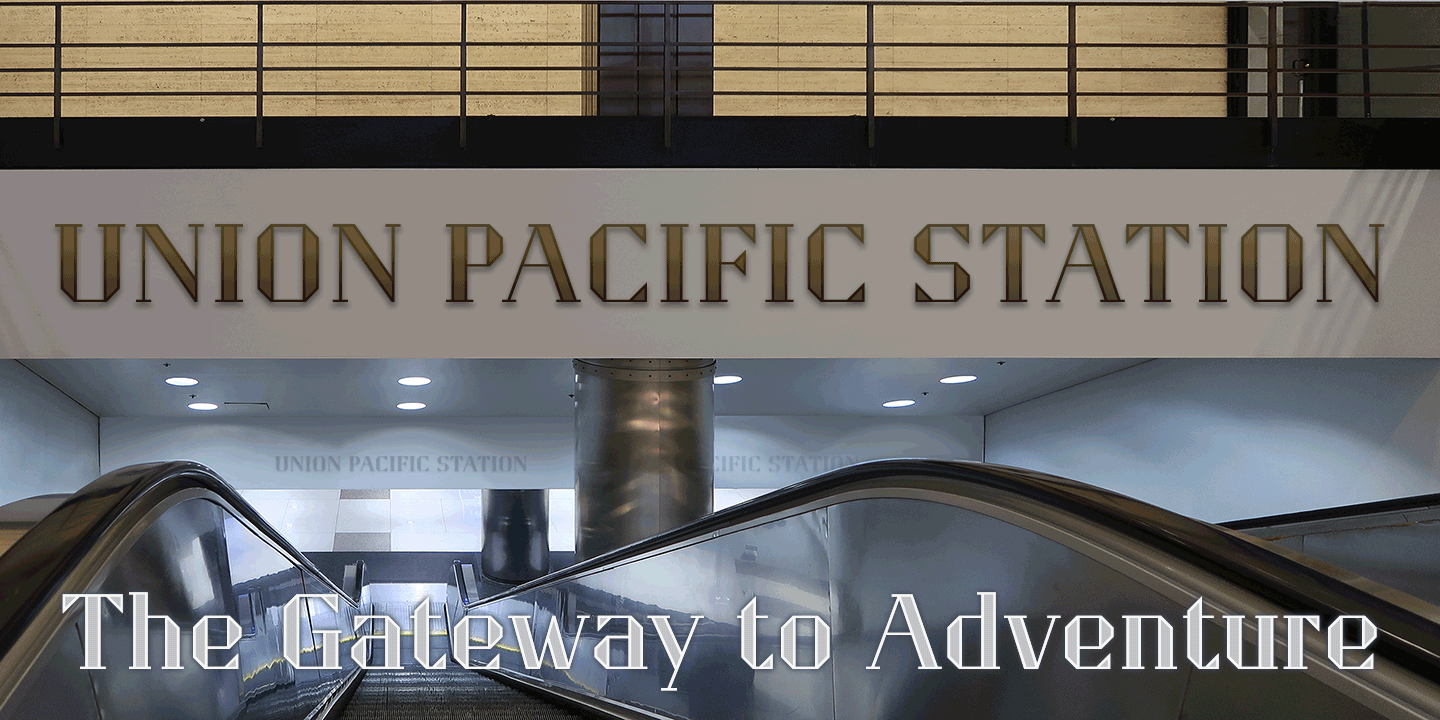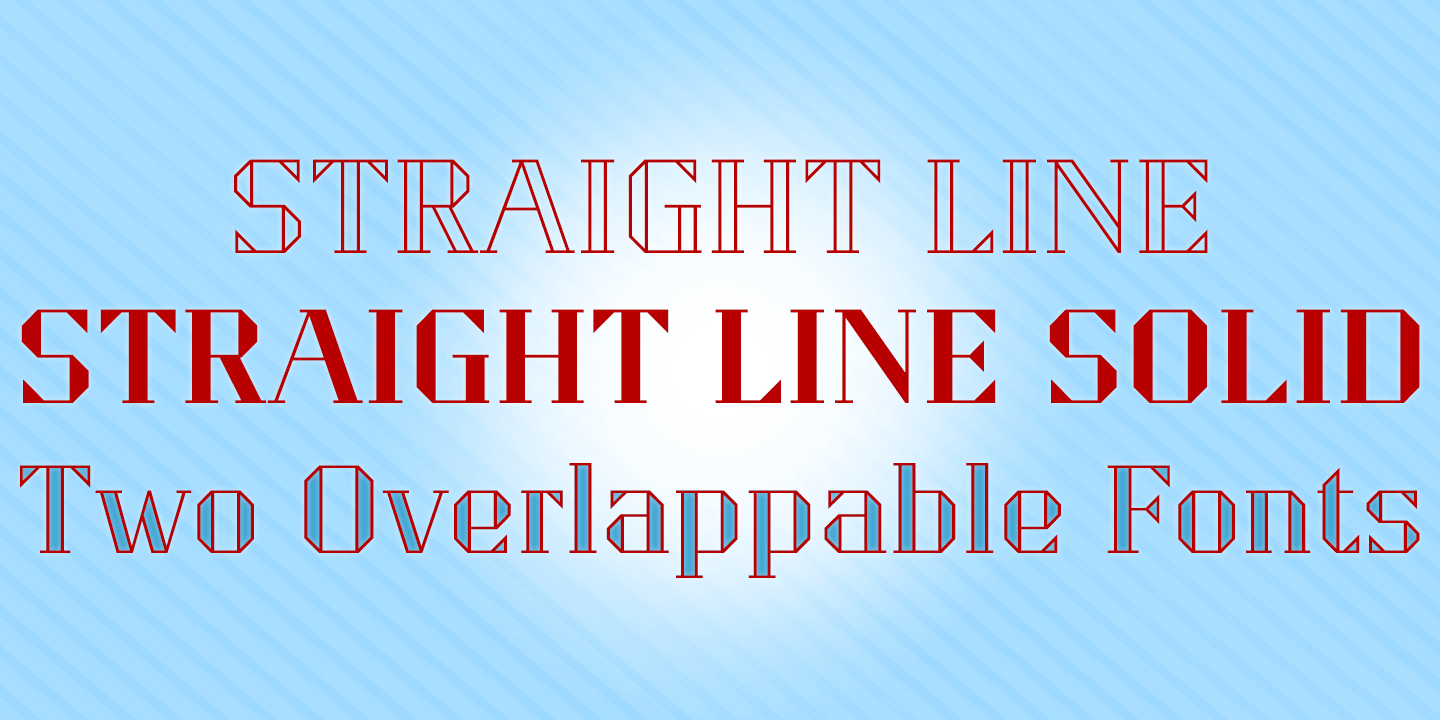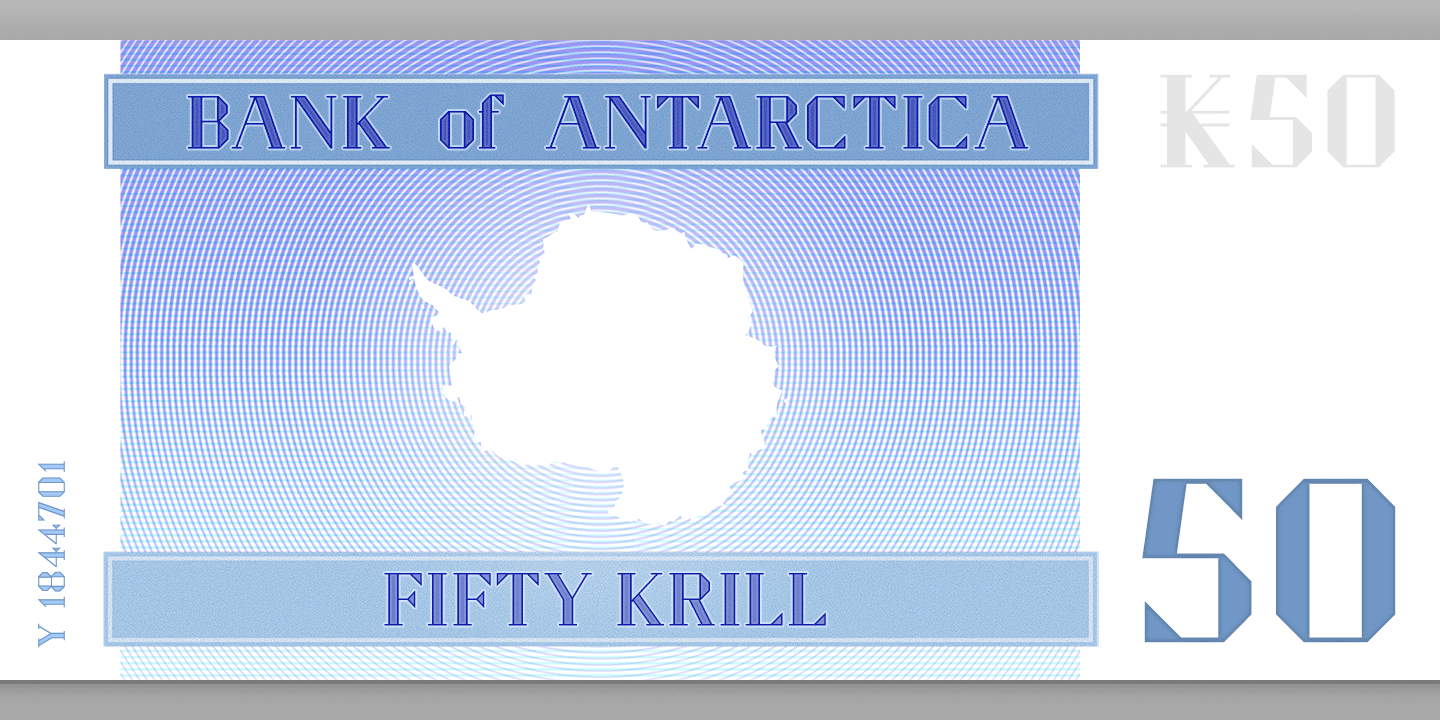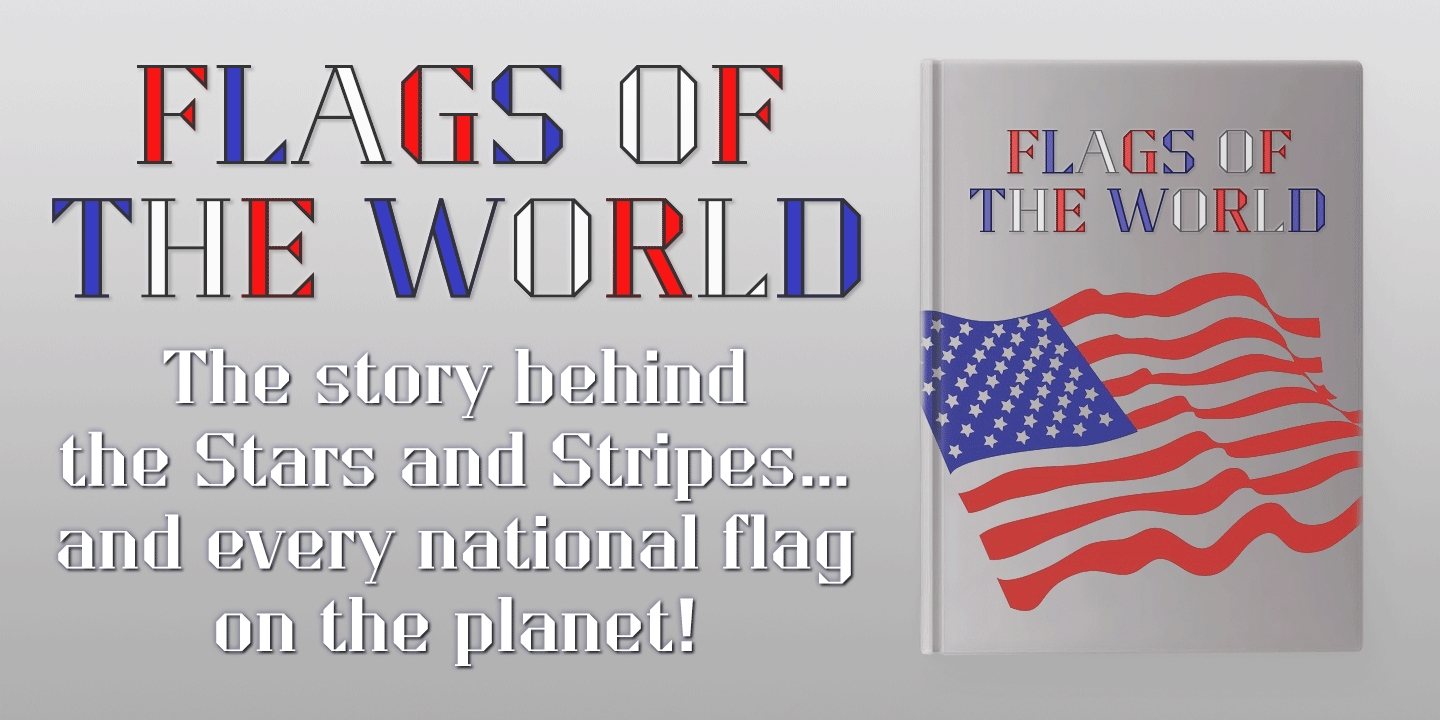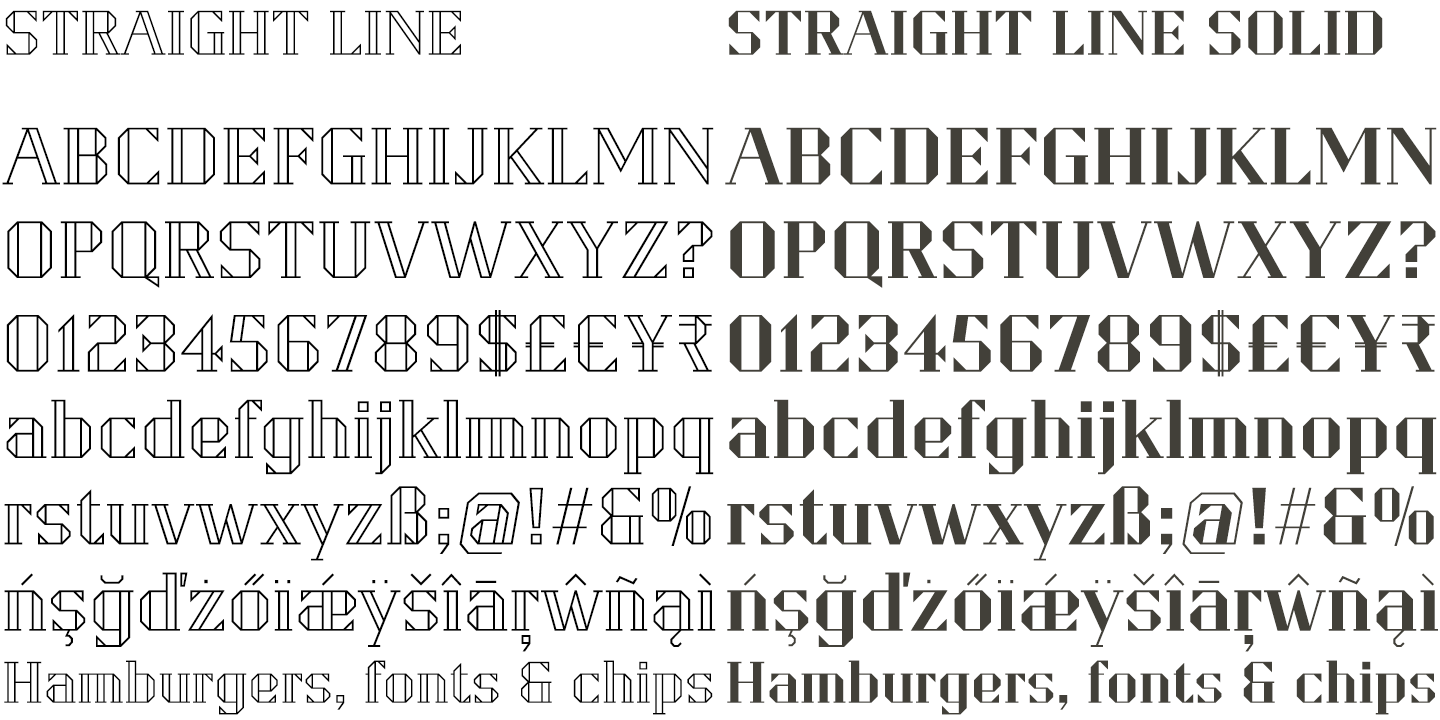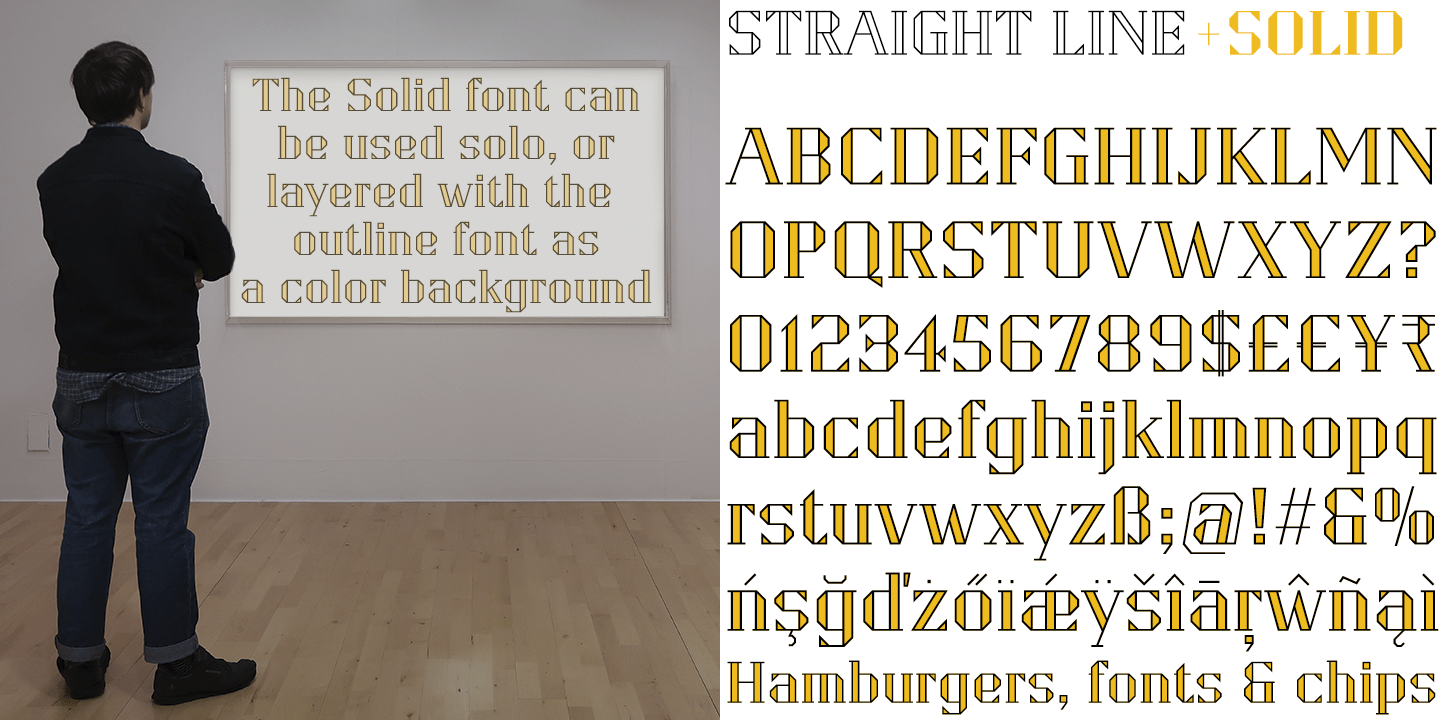
Straight Line
Font Family by K-Type
Straight Line is essentially an outline Modern, but drawn without any curves whatsoever. Thin horizontals and thick verticals provide the classic look of a Didone, updated and enhanced by clean, minimalist geometry.
In addition to the Straight Line font itself, the package includes Straight Line Solid with matching spacing and kerning. The Solid font can be used solo, or layered with the outline font to provide a colour background.
Straight Line is an excellent display face for contemporary, eye-catching headings and sub-headings, and the fonts contain a full complement of Latin Extended-A characters.
The typeface was inspired by a 1930s experimental alphabet by the British artist, Percy J Delf Smith.